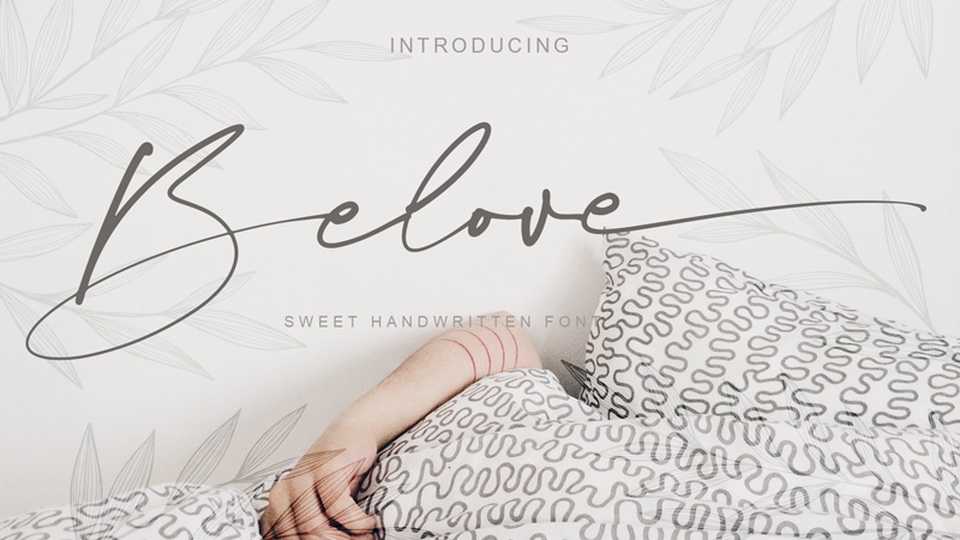
Download Belove font, a casual handwritten script with a natural signature style. Belove font is great for your next creative projects such as watermark on photography, quotes, album cover, logo, business card and more.
Designer: Agung Rohmat